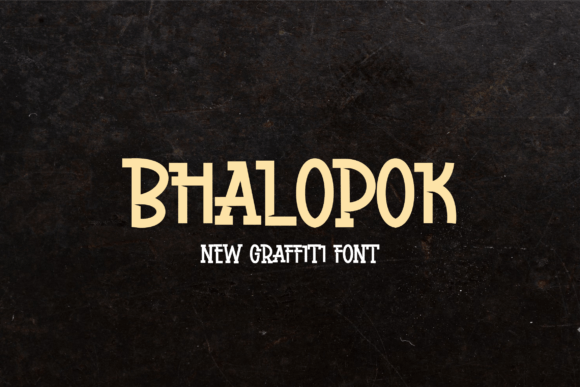
Unleash Your Inner Rebel with the Bhalopok Font
Remember that moment when you first discovered the perfect font for your art project? It’s like finding a missing piece of a puzzle, and everything clicks into place. For designers seeking to add a dash of personality to their designs, the Bhalopok Font is that elusive piece.
This graffiti-style font is more than just a typographical choice – it’s an attitude. With its bold, spray-painted aesthetic, the Bhalopok Font is the perfect fit for street art, posters, and designs that need a little extra edge. Whether you’re creating a bold statement or a subtle nod to urban culture, the Bhalopok Font is a valuable tool in any designer’s toolkit.
- Font Family: Bhalopok is a unique and exclusive font family designed to cater to various needs. It comes in multiple styles, including bold, regular, and italic.
- Unique Characteristics: The Bhalopok font features a distinctive, hand-drawn style with a mix of modern and traditional elements, making it perfect for creative and artistic projects.
Bhalopok Font Review
- The unique, playful style of the Bhalopok font is a breath of fresh air in the world of typography. It’s perfect for adding a touch of whimsy to children’s books, advertising campaigns, or any project that needs a bit of personality.
- The font is highly legible, even at small sizes, making it suitable for a wide range of applications, from body text to headings.
- The font’s OpenType features allow for some really interesting and creative uses, such as ligatures and swashes.
- The font’s limited character set may make it less suitable for languages that require a wide range of characters, such as Chinese or Japanese.
- The font’s bold weights may not be as robust as some designers might prefer, particularly at smaller sizes.
Overall, I think the Bhalopok font is a great addition to any designer’s toolkit. Its unique style and high legibility make it a great choice for a wide range of projects. While it may have some limitations, I think these are minor compared to its many strengths.
The Bhalopok font is perfect for:
- Brand logos and marketing materials
- Book covers and interior design